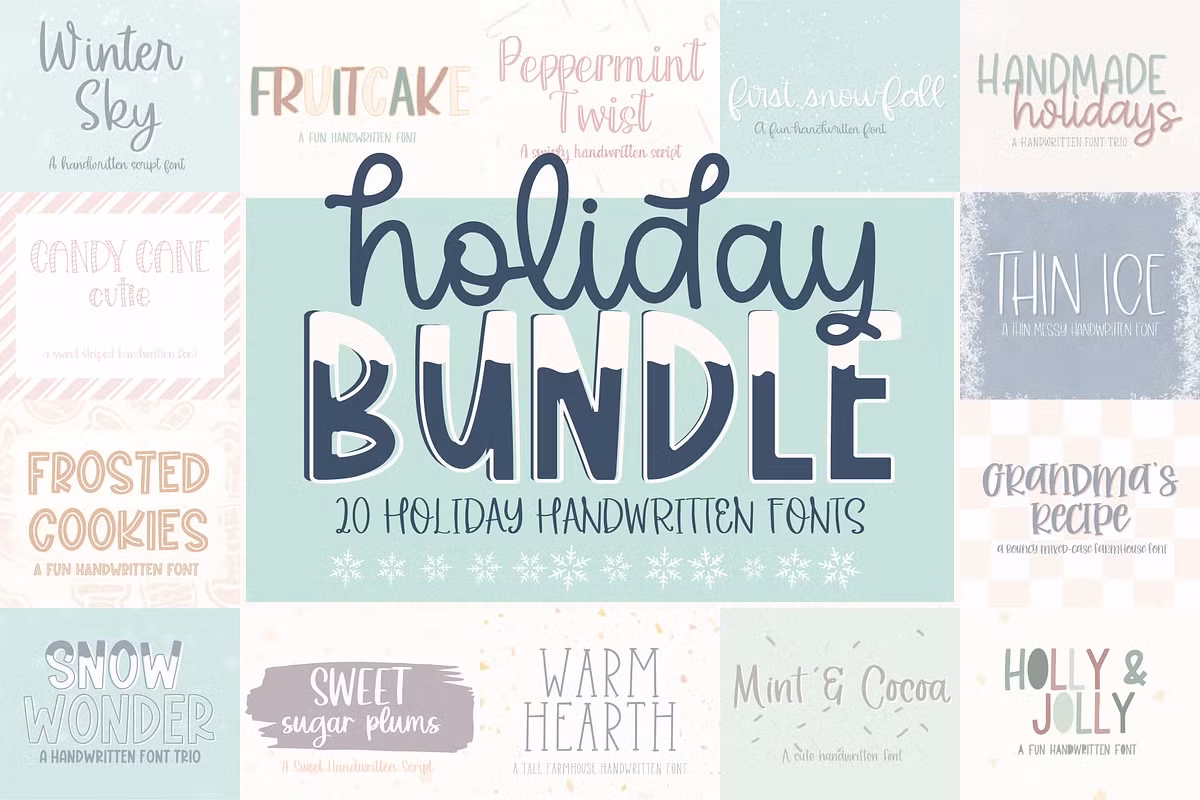
The Holiday Handwritten Font Bundle Free Download is a charming collection of playful, handwritten fonts designed to bring a personal touch to your holiday-themed projects. Perfect for Christmas cards, festive branding, party invitations, social media posts, and more, this bundle adds a cozy, cheerful feel to your designs.
With a variety of script and display styles, the Holiday Handwritten Font Bundle offers versatility for any project needing a handwritten, organic aesthetic. It includes uppercase and lowercase letters, numbers, punctuation, and multilingual support, making it perfect for a wide range of creative applications.